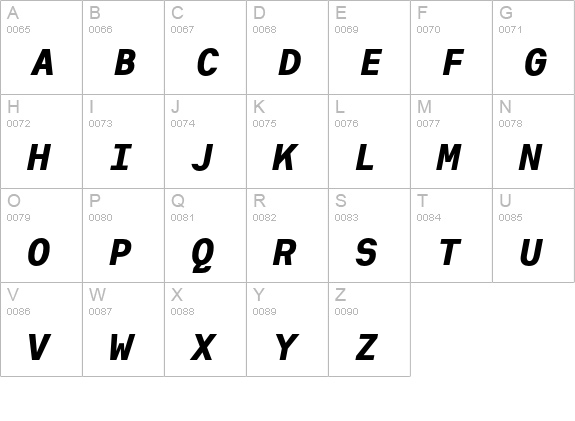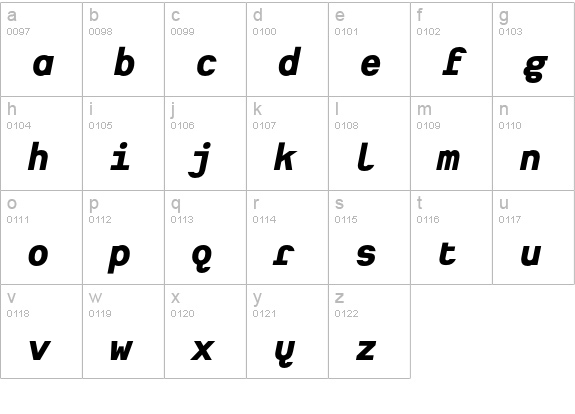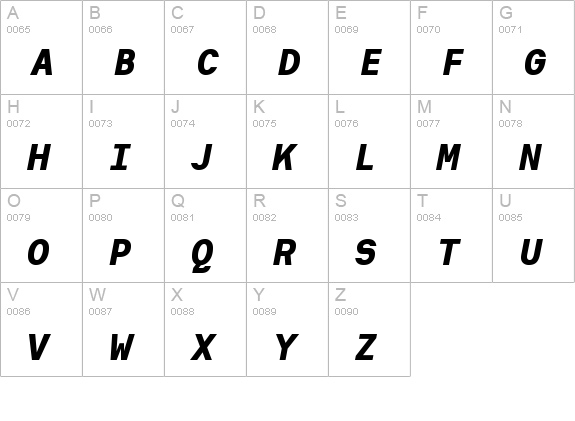
Heimat Mono ExtraBold Italic Font Details
Heimat Mono ExtraBold Italic is an extra-heavy, attention-grabbing, italic variant in the Heimat typeface family \xE2\x80\x94 well suited to high-impact headlines, posters, and bold branding.
Heimat Mono ExtraBold Italic is a striking and bold typeface that exudes a sense of strength and modernity. Its clean lines and distinct italic styling make it perfect for adding a touch of sophistication to any design project. From editorial layouts to branding materials, this font commands attention and leaves a lasting impression. What sets Heimat Mono ExtraBold Italic apart is not only its remarkable design but also the fact that it is available for free download at FontsMarket.com. This means that you can easily access this high-quality font without any cost, making it a valuable resource for designers, creatives, and anyone looking to elevate their projects with a touch of elegance. Whether you're working on a website, poster, packaging, or any other graphic design project, Heimat Mono ExtraBold Italic is sure to make a statement. Download it for free today and see how this font can take your work to the next level.